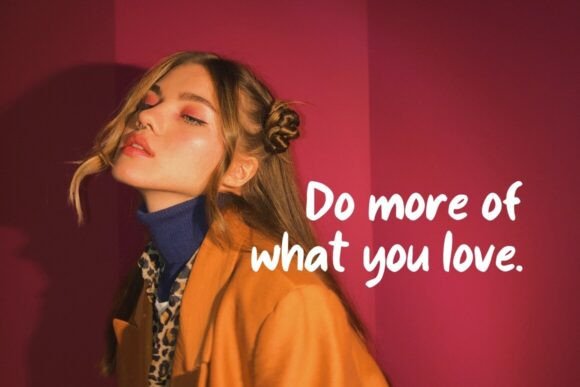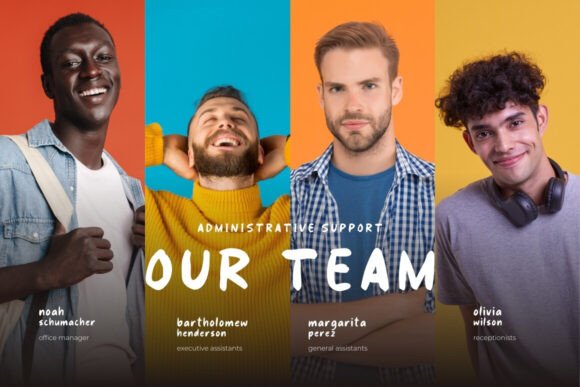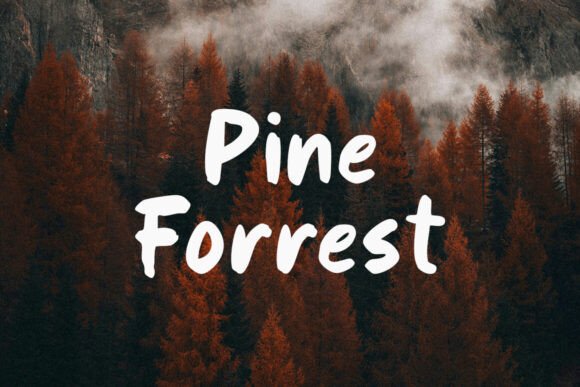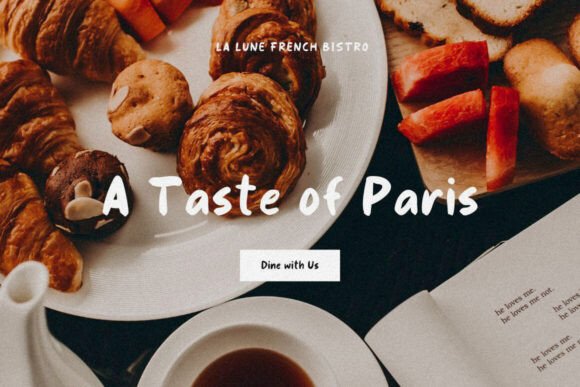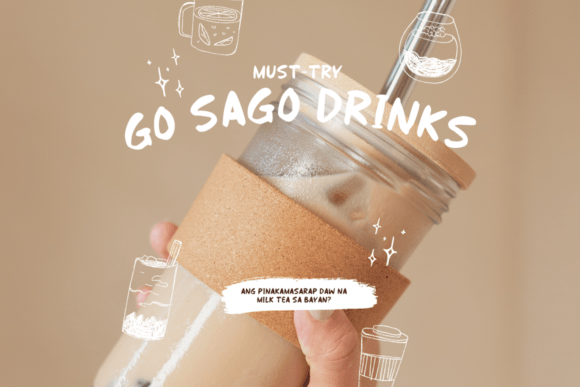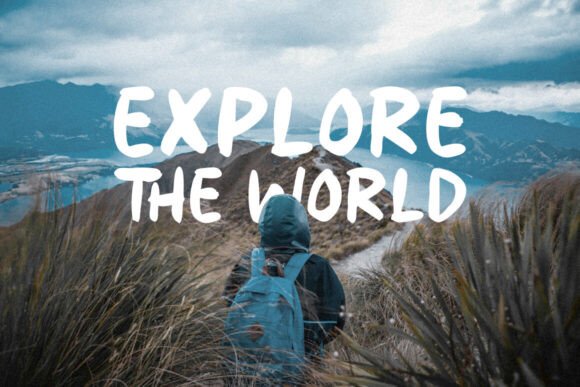
Introduction to Oxford Vibes Font Font
Fonts play a crucial role in design, and the Oxford Vibes Font font is a typeface that brings both character and versatility to any project. Whether you’re working on a branding project, a website, or a print design, the Oxford Vibes Font font offers a unique style that can elevate your work.
Oxford Vibes is a playful and natural handwritten font, ideal for adding a personal touch to your creative projects.
With its free-flowing strokes and organic feel, this font is perfect for designing logos, crafting watermarks, and enhancing branding materials Whether youβre working on wedding invitations or creating inspiring quotes, Untuckle provides the charm and authenticity required for visually engaging text elements.
Key Features of Oxford Vibes Font Font
Why Choose Oxford Vibes Font Font?
The Oxford Vibes Font font is more than just a typeface β it’s a design tool that helps you communicate your message with style and clarity. Its unique character set and versatile design make it suitable for a wide range of applications, from elegant invitations to bold headlines.
With its carefully crafted letterforms and balanced proportions, the Oxford Vibes Font font ensures readability and visual appeal across all mediums.
What makes Oxford Vibes Font font special?
The Oxford Vibes Font font stands out with its unique design, exceptional readability, and versatility across various design applications.